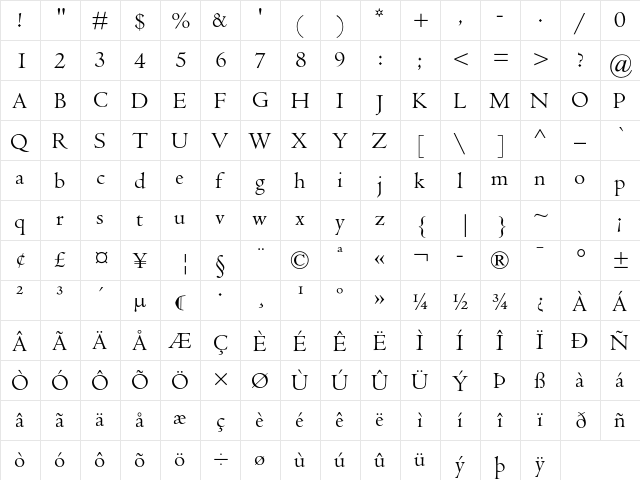
Centaur MT Std Regular
| Designer | Bruce Rogers, Frederic Warde |
Design Context for Centaur MT Std Typeface
Centaur MT Std offers clean, dependable letterforms without strong stylistic allegiance, making it a practical choice for designers who need flexibility.
Pro Tip: Use Centaur MT Std in both headline and body roles to test its range before committing to a single application.